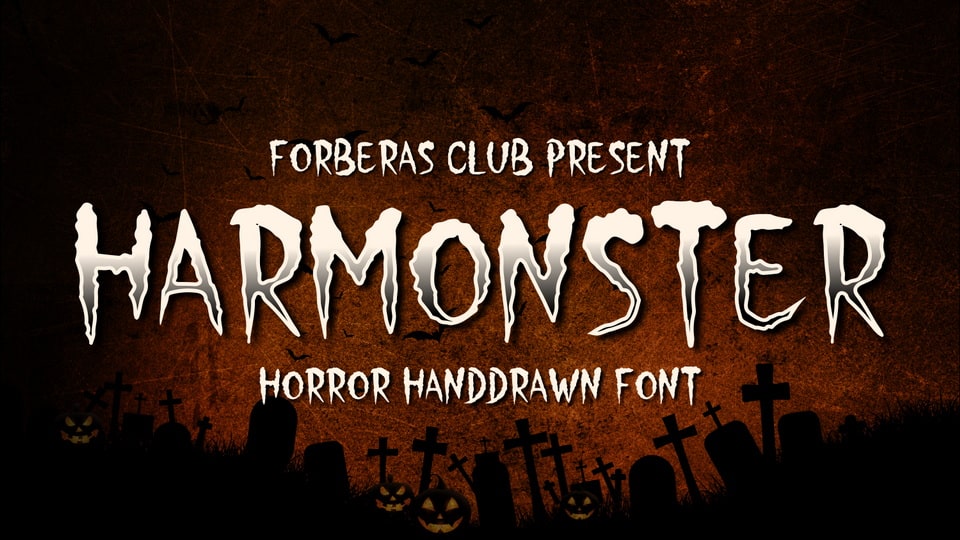
Download Harmonster font, a creepy looking display typeface. Add it to your Halloween crafts, horror movie posters, t-shirts and anything else that requires a spectacular look.